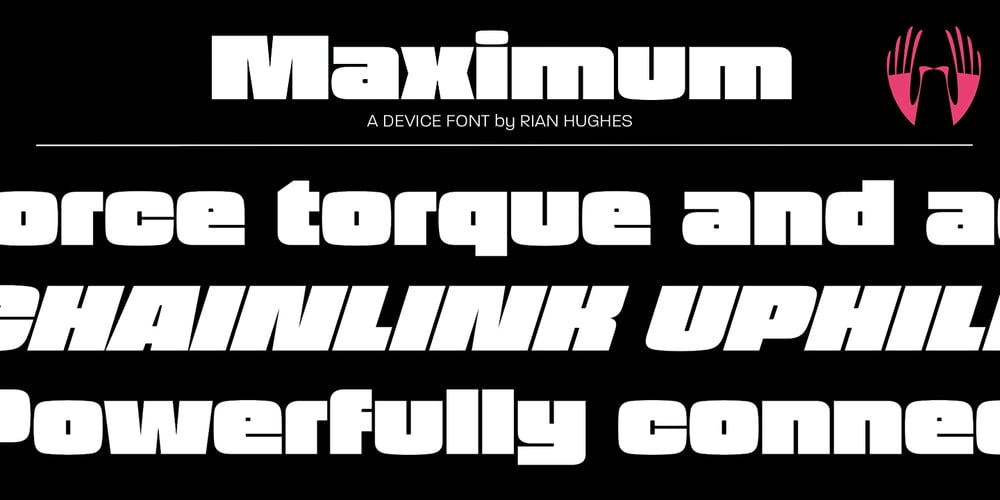
Maximum Font Family was designed by Rian Hughes and published by Device. Maximum contains 2 styles and family package options. Bold, punchy and attention-grabbing, Maximum is an extended sans serif with obround curves that fills the space on the page due to its tight spacing and short ascenders and descenders. Recommended for posters, packaging, headlines and branding.